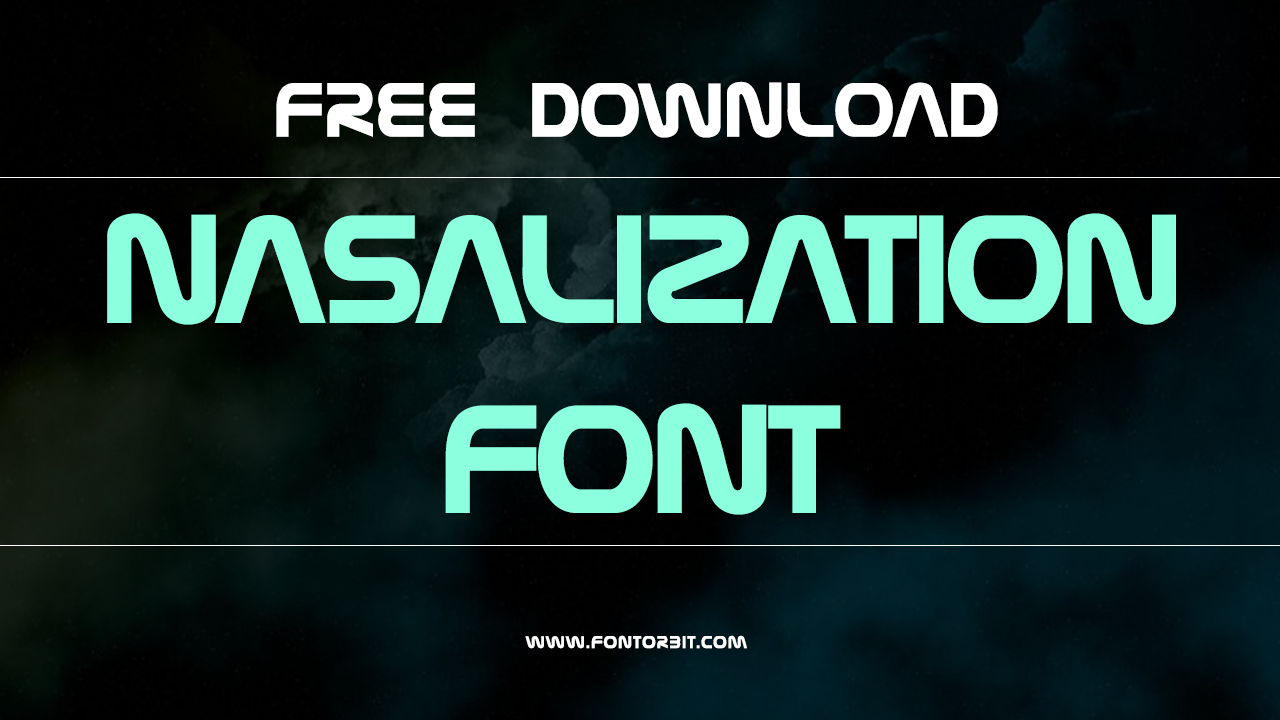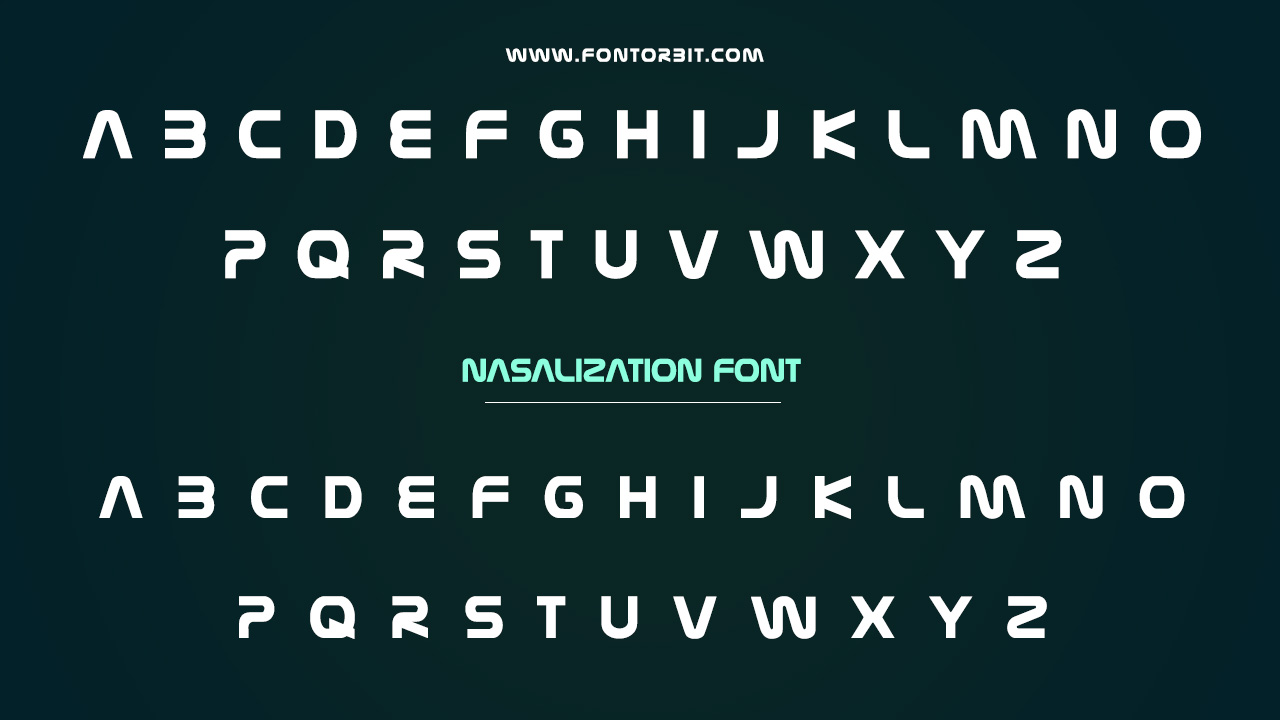
Nasalization is a futuristic sans-serif typeface designed by Ray Larabie and published by Typodermic Fonts. It was first released in the early 2000s and is part of the geometric sans-serif font family.
Its sleek, rounded letterforms are inspired by the NASA logotype and space-age aesthetics, making it a popular choice for modern and tech-centric designs.
Nasalization Font Family Includes
Nasalization is known for its unique space-age styling, combining legibility with futuristic design. The font family includes several weights and variations:
Nasalization Regular
Notable Uses Of Nasalization
Nasalization has been widely used in various creative fields, particularly where futuristic and technological aesthetics are emphasized. Its smooth, geometric letterforms evoke a modern, space-age feel, making it popular for sci-fi, tech, and space-related branding and media. Below are some notable uses of Nasalization:
- Sci-Fi Movie Posters
- Video Game Covers
- Tech Product Packaging
- Space-Themed Events and Exhibitions
- Aerospace Branding
Due to its modern, sleek design, Nasalization is ideal for futuristic, sci-fi, or tech-related projects. It works well in the following contexts:
- Logos for tech startups or companies in the aerospace
- Movie posters for sci-fi or space-themed films
- Packaging for technology products
- Branding for modern events or exhibitions
Nasalization is an ideal font for anyone working on a project with futuristic or technological themes. With its sleek, space-age appearance, it lends a modern and forward-looking feel to any design. Whether for logos, posters, or digital branding, Nasalization offers a unique look that stands out in a modern landscape.
2.What Type Of Font Is Nasalization?
Nasalization is a geometric, futuristic sans-serif font.
3.When Was Nasalization First Published?
It was released in the early 2000s.
5.What Projects Is Nasalization Suitable For?
It is ideal for sci-fi, tech, and futuristic designs.
6.Is There A Bold Version Of Nasalization?
Yes, Nasalization Bold is available in the font family.
7.Does Nasalization Have A Condensed Version?
Yes, Nasalization Condensed is part of the family.